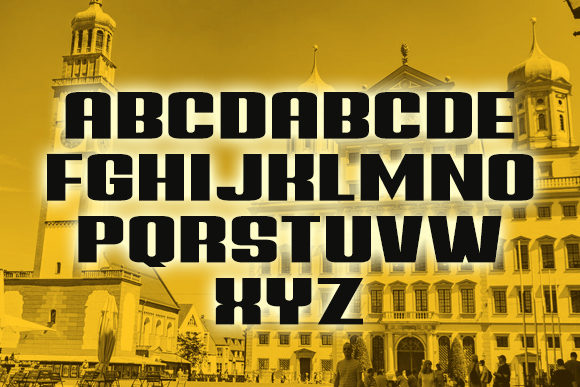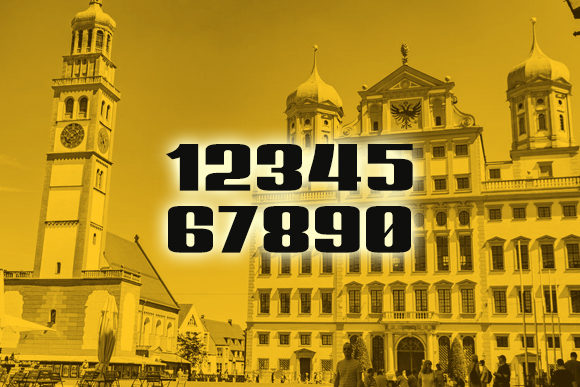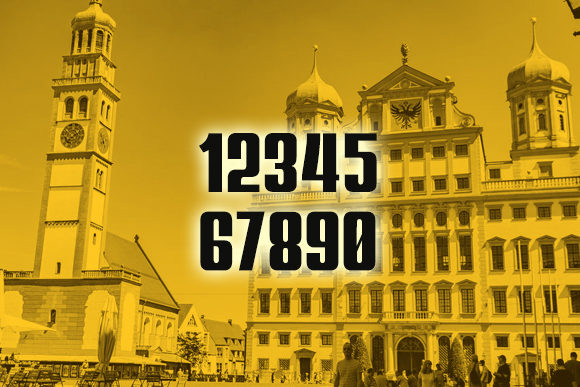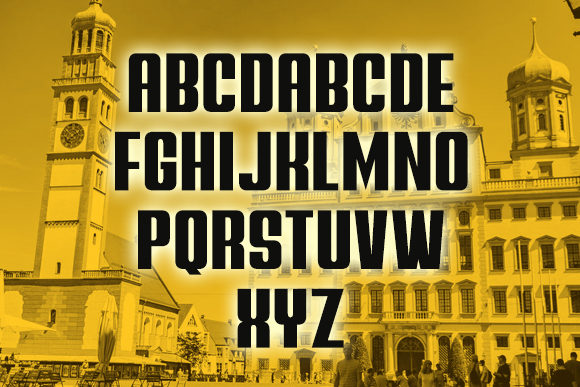
Augsburg Font: Elevate Your Designs with a Bold and Thick Lettered Display Font
In the world of typography, a font can make or break a design. It’s the foundation upon which the entire visual identity is built. For designers and crafters, finding the perfect font can be a daunting task. However, if you’re looking for a bold and thick lettered display font that can elevate any creation, look no further than Augsburg Font.
What is Augsburg Font?
Augsburg Font is a stunning display font that boasts a bold and thick lettered style. Its unique design makes it an incredibly versatile asset for any font library. Whether you’re working on a branding project, a poster, or a website, Augsburg Font is sure to make a statement.
Key Features of Augsburg Font
- Bold and Thick Lettered Style: Augsburg Font features a bold and thick lettered design that commands attention.
- Versatility: This font is perfect for a wide range of design projects, from branding and posters to websites and more.
- Easy to Read: Despite its bold style, Augsburg Font is easy to read, making it perfect for headlines and titles.
- Unique Design: Augsburg Font’s unique design sets it apart from other fonts, making it a great addition to any font library.
Why Choose Augsburg Font?
There are many fonts available, but Augsburg Font stands out from the crowd. Here are just a few reasons why:
- Elegance and Sophistication: Augsburg Font adds a touch of elegance and sophistication to any design.
- Attention-Grabbing: Its bold and thick lettered style makes it perfect for grabbing attention and drawing the eye.
- Flexibility: Augsburg Font can be used for a wide range of design projects, from formal to informal.
How to Use Augsburg Font
Augsburg Font is incredibly easy to use. Here are a few tips to get you started:
- Headlines and Titles: Use Augsburg Font for headlines and titles to add a touch of elegance and sophistication.
- Branding: Augsburg Font is perfect for branding projects, such as logos and business cards.
- Posters and Flyers: Use Augsburg Font to add a bold and eye-catching element to posters and flyers.
- Web Design: Augsburg Font can be used for web design, such as headings and titles.
Tips for Pairing Augsburg Font with Other Fonts
Pairing Augsburg Font with other fonts can create a stunning visual effect. Here are a few tips:
- Contrasting Fonts: Pair Augsburg Font with a contrasting font, such as a thin and elegant font, to create visual interest.
- Similar Fonts: Pair Augsburg Font with a similar font, such as another bold and thick lettered font, to create a cohesive look.